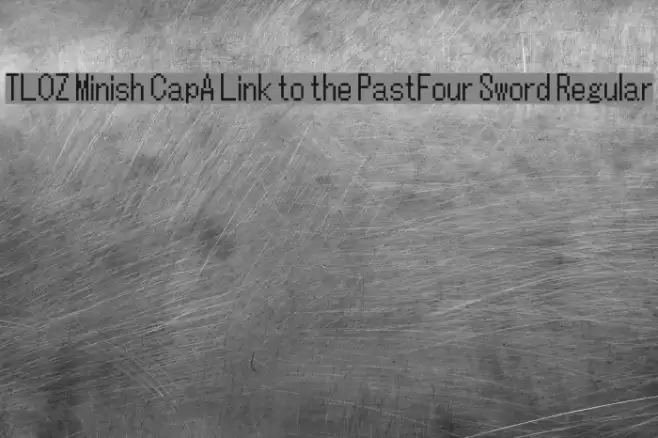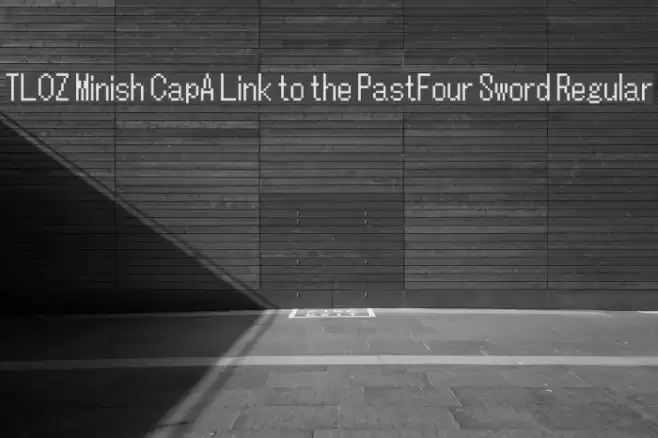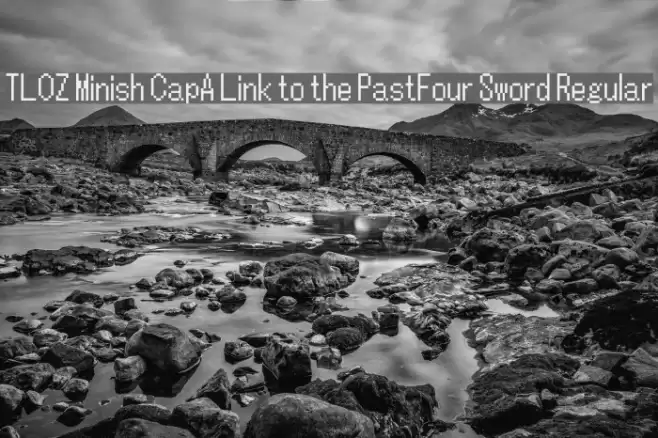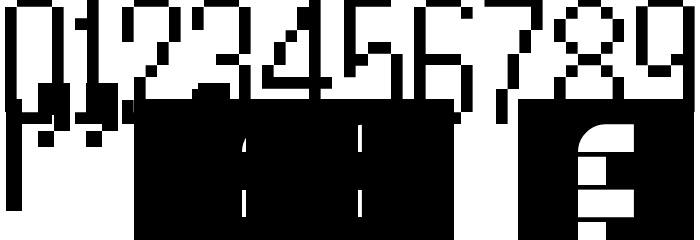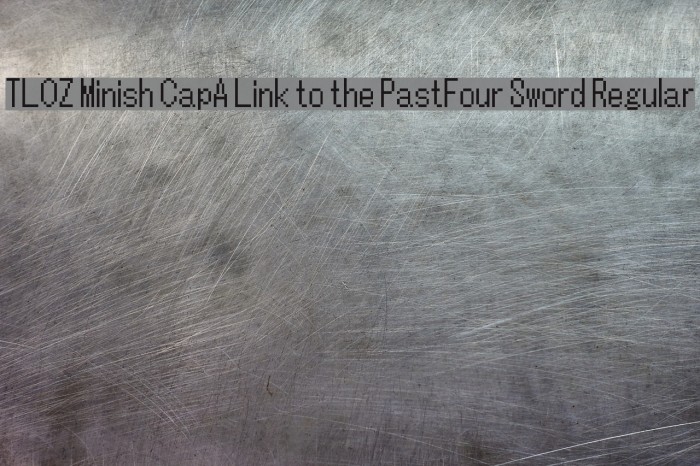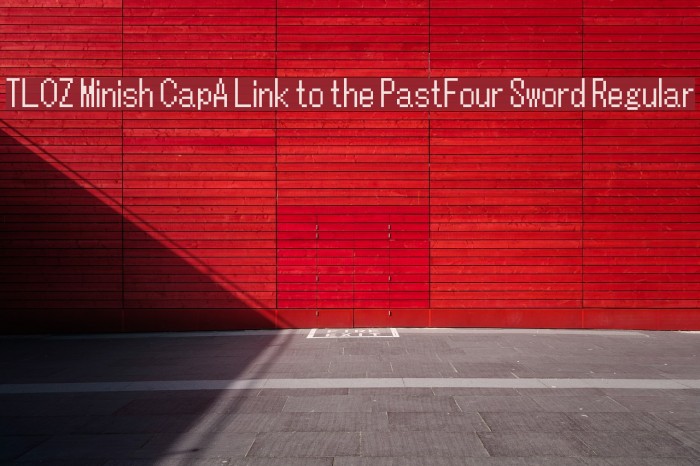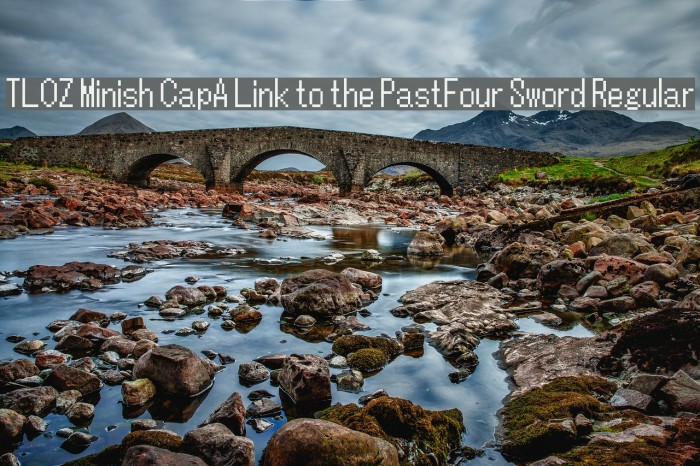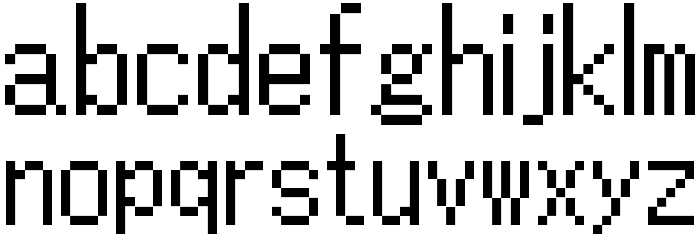
TLOZ Minish Cap/A Link to the Past/Four Sword Regular Font
TLOZ Minish Cap/A Link to the Past/Four Sword Regular Description
This font features a pixelated, blocky design reminiscent of classic video game graphics. Each character is constructed with a uniform grid-like structure, giving it a retro, digital appearance. The uppercase and lowercase letters maintain a consistent height and width, contributing to a cohesive and orderly look. The numerals and special characters follow the same pixelated style, ensuring uniformity across all glyphs. This font's nostalgic aesthetic is ideal for projects that aim to evoke a sense of vintage gaming or digital art.
A pixelated, retro font inspired by classic video game graphics from Uncategorized fonts.
- Proposed Projects: Ideal for retro video game designs, digital art projects, and nostalgic branding.
- Overall Style: Vintage
- Use Case: Logos, Headlines, Digital Art